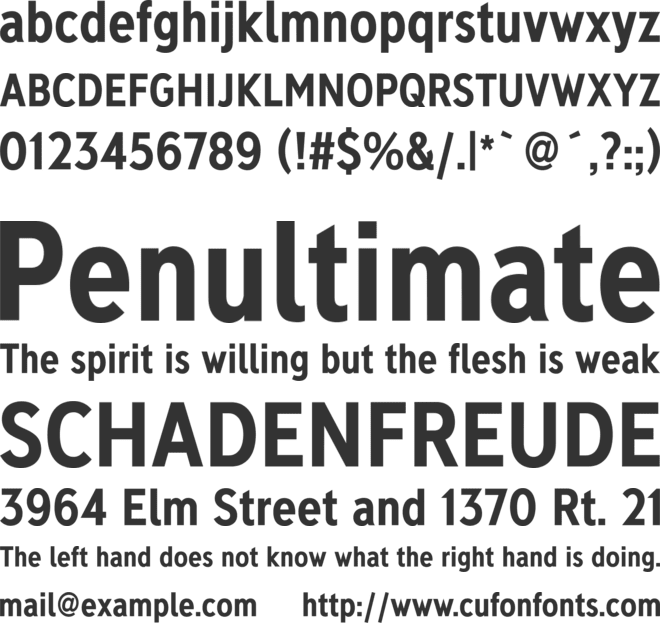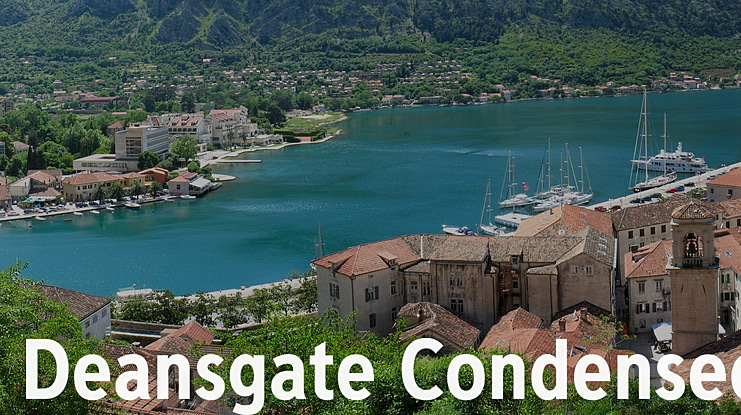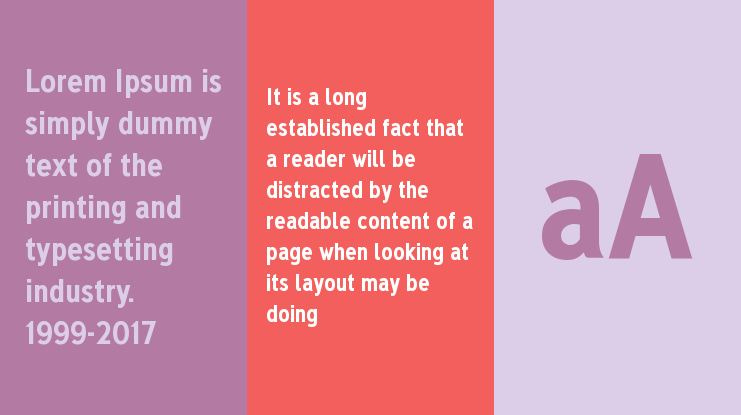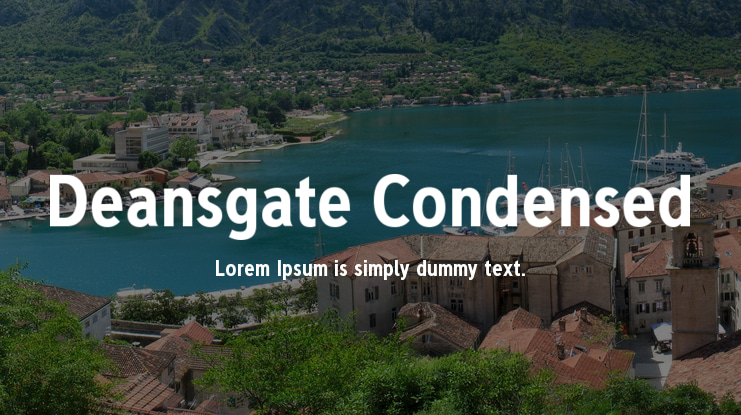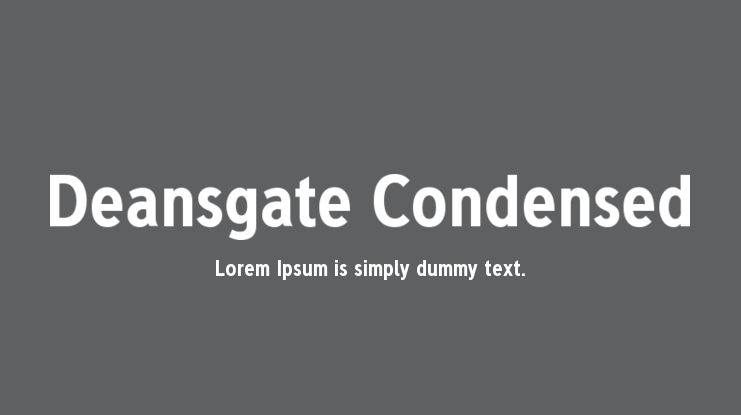
Deansgate Condensed Font
Deansgate and Deansgate Condensed are based on the clearest and most distinctive of the sans-serif letterforms used on Manchester street nameplates, and easily identified by a pointy Z and pointed middle vertices on M and W.
The Bold weights of each family are perfect for signage, with almost monoweight strokes designed for easy reading, close up or at distance, and with the legible, slightly ’squarified’ round shapes normally associated with grotesque faces. The new lowercase tips the hat to the Transport fonts, and the regular weights transfer the clarity of the Bold faces to Deansgate’s text fonts which are ideal for use on the web or in print. Each family also includes an Italic and a Bold Italic.
Deansgate Condensed Bold © 2015 K-Type • www.k-type.com • K-Type DEANSGATE is a full typeface developed from monoweight lettering used for Manchester street nameplates and distinguished by a pointy Z and pointed middle vertices on M and W.